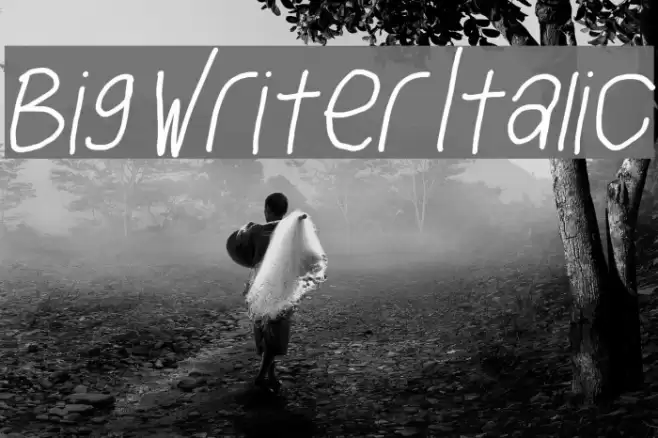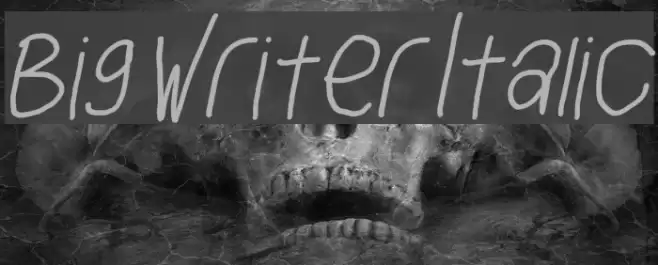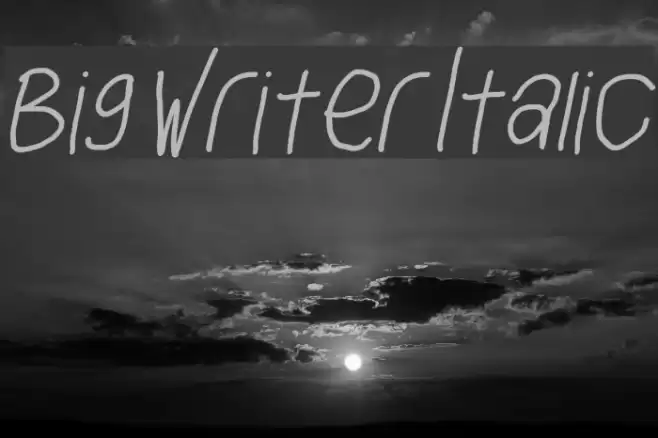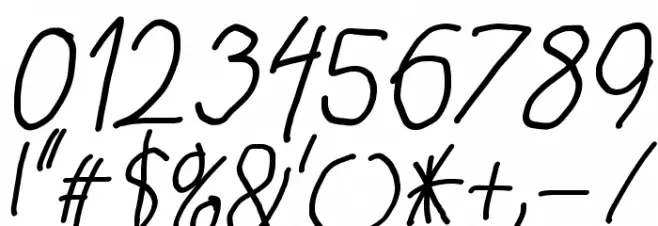
Big Writer Italic Font
Big Writer Italic Description
This font features a handwritten style with a casual and informal appearance. The characters are slightly slanted, giving it an italicized look, which adds a dynamic and flowing quality to the text. The strokes are smooth and consistent, with a medium thickness that maintains readability while conveying a personal touch. The uppercase and lowercase letters are well-proportioned, and the numbers and special characters are clearly defined, making it versatile for various uses. The overall aesthetic is approachable and friendly, suitable for projects that require a personal or creative flair.
A casual, handwritten italic font with a smooth, flowing style from Uncategorized fonts.
- Proposed Projects: Ideal for personal notes, creative projects, invitations, and informal branding.
- Overall Style: Casual
- Use Case: Headlines, Logos, Invitations